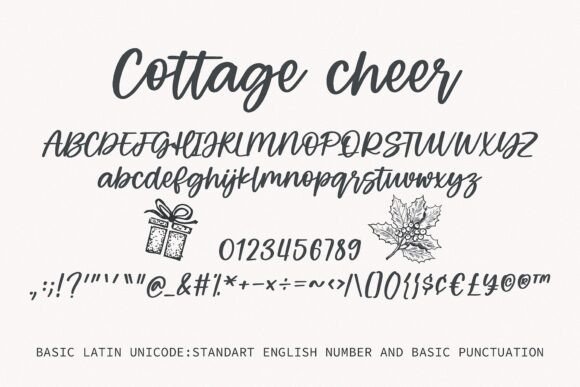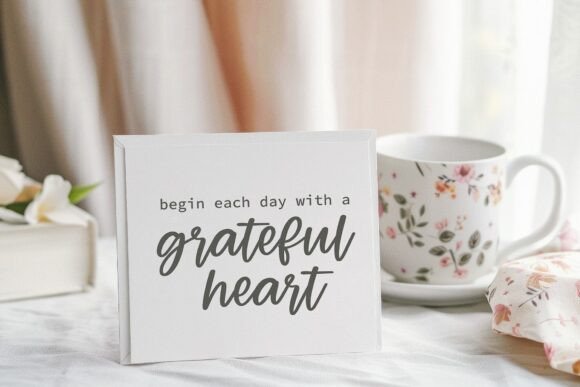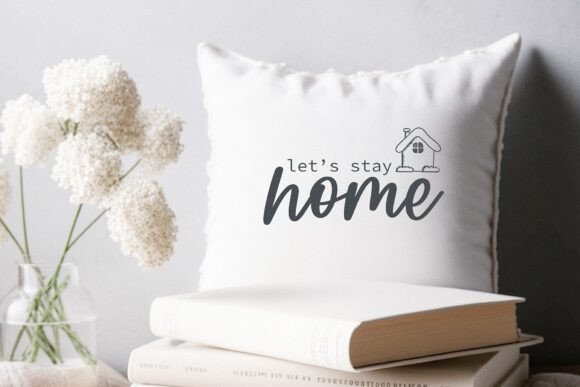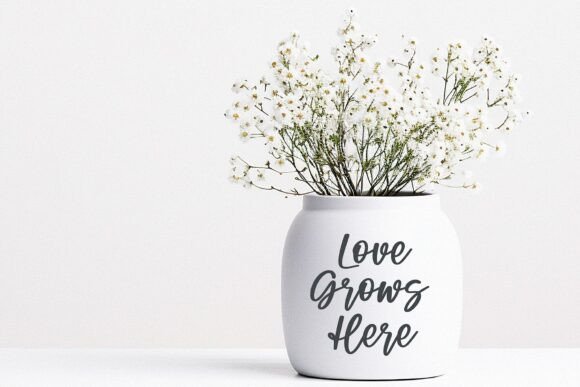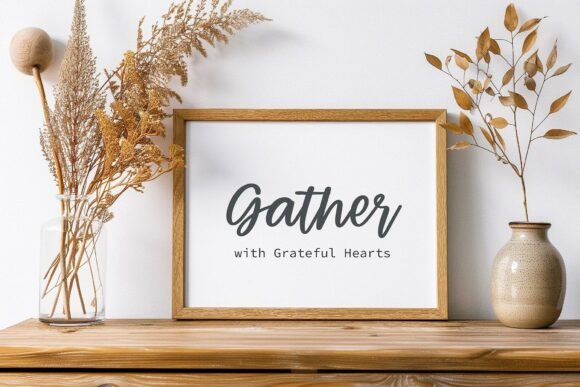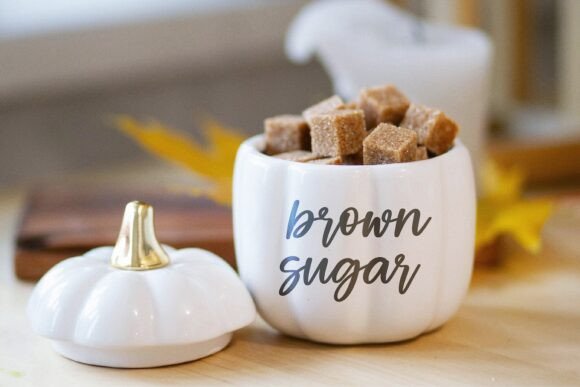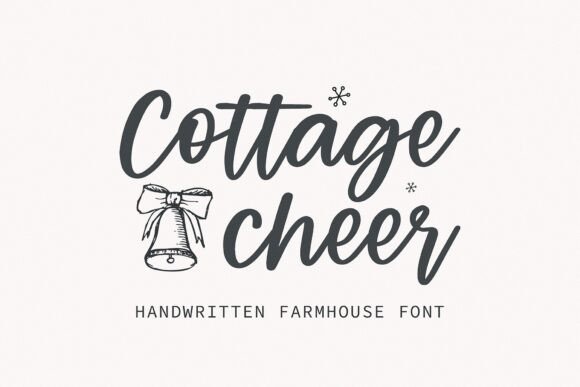
Cottage Cheer Font: Elevate Your Designs with this Gorgeous Handwritten Font
Are you a designer or crafter looking for a unique and versatile font to elevate your creative projects? Look no further than Cottage Cheer Font! This stunning handwritten font is perfect for creating beautiful wedding invitations, stationary art, social media posts, and more. In this article, we’ll dive into the world of Cottage Cheer Font and explore its features, uses, and benefits.
What is Cottage Cheer Font?
Cottage Cheer Font is a gorgeous handwritten font that exudes warmth, elegance, and sophistication. Its incredibly versatile style makes it perfect for a wide range of design projects, from romantic wedding invitations to eye-catching social media posts. With its unique blend of classic and modern elements, Cottage Cheer Font is sure to capture the hearts of designers and crafters alike.
Features of Cottage Cheer Font
So, what makes Cottage Cheer Font so special? Here are just a few of its standout features:
- Handwritten style: Cottage Cheer Font boasts a beautiful, handwritten style that’s perfect for creating personal and heartfelt designs.
- Versatile: This font is incredibly versatile, making it suitable for a wide range of design projects, from wedding invitations to social media posts.
- Elegant and sophisticated: Cottage Cheer Font exudes elegance and sophistication, making it perfect for designs that require a touch of luxury.
- Easy to read: Despite its ornate style, Cottage Cheer Font is easy to read, making it perfect for designs that require a clear and concise message.
Uses of Cottage Cheer Font
So, what can you use Cottage Cheer Font for? The possibilities are endless! Here are just a few ideas to get you started:
- Wedding invitations: Create beautiful, romantic wedding invitations that set the tone for the big day.
- Stationary art: Design stunning stationary art, including greeting cards, thank you cards, and more.
- Social media posts: Elevate your social media posts with Cottage Cheer Font’s elegant and sophisticated style.
- Branding and packaging: Use Cottage Cheer Font to create beautiful branding and packaging designs that stand out from the crowd.
Benefits of Using Cottage Cheer Font
So, why should you choose Cottage Cheer Font for your design projects? Here are just a few benefits:
- Unique and distinctive: Cottage Cheer Font is a unique and distinctive font that will set your designs apart from the crowd.
- Time-saving: With Cottage Cheer Font, you can create beautiful designs in no time, saving you time and effort.
Tips for Using Cottage Cheer Font
Here are a few tips for getting the most out of Cottage Cheer Font:
- Experiment with different sizes and colors: Don’t be afraid to experiment with different sizes and colors to find the perfect combination for your design.
- Pair with other fonts: Cottage Cheer Font pairs beautifully with other fonts, so don’t be afraid to get creative and try out different combinations.
- Use it sparingly: While Cottage Cheer Font is beautiful, it can be overwhelming if used too much. Use it sparingly to create a striking design.